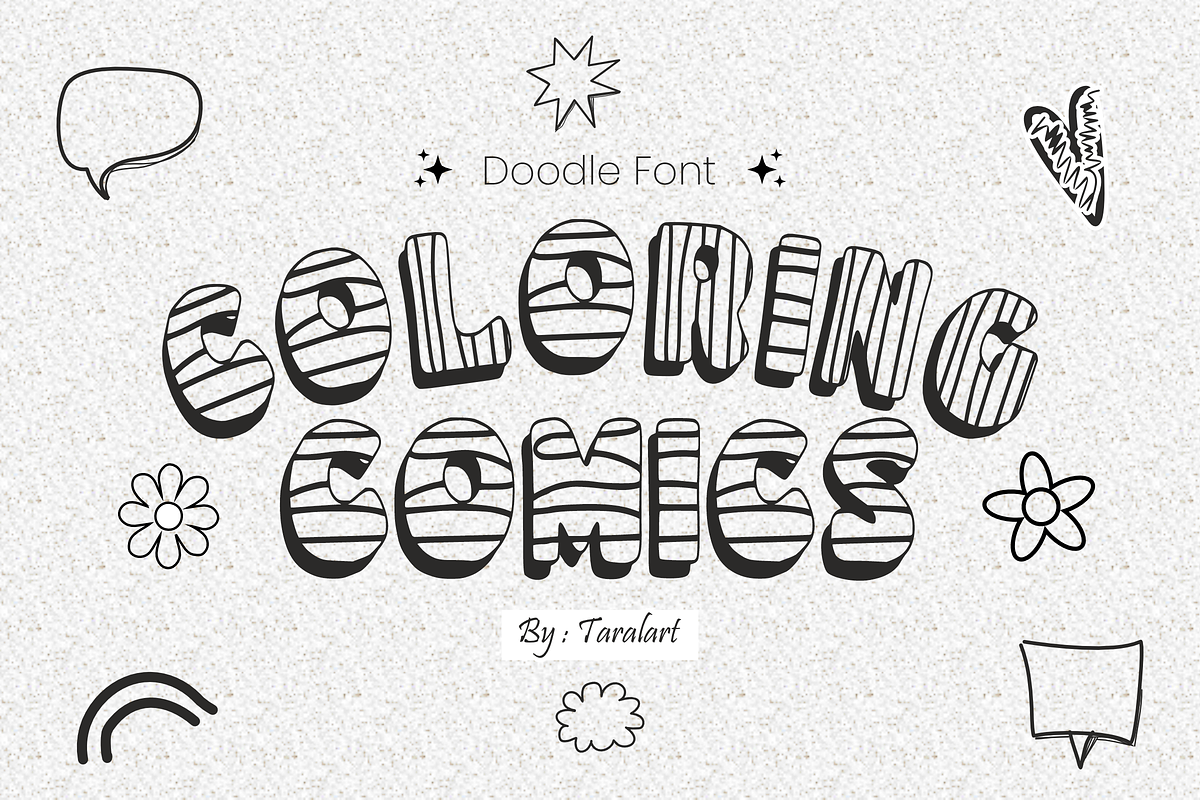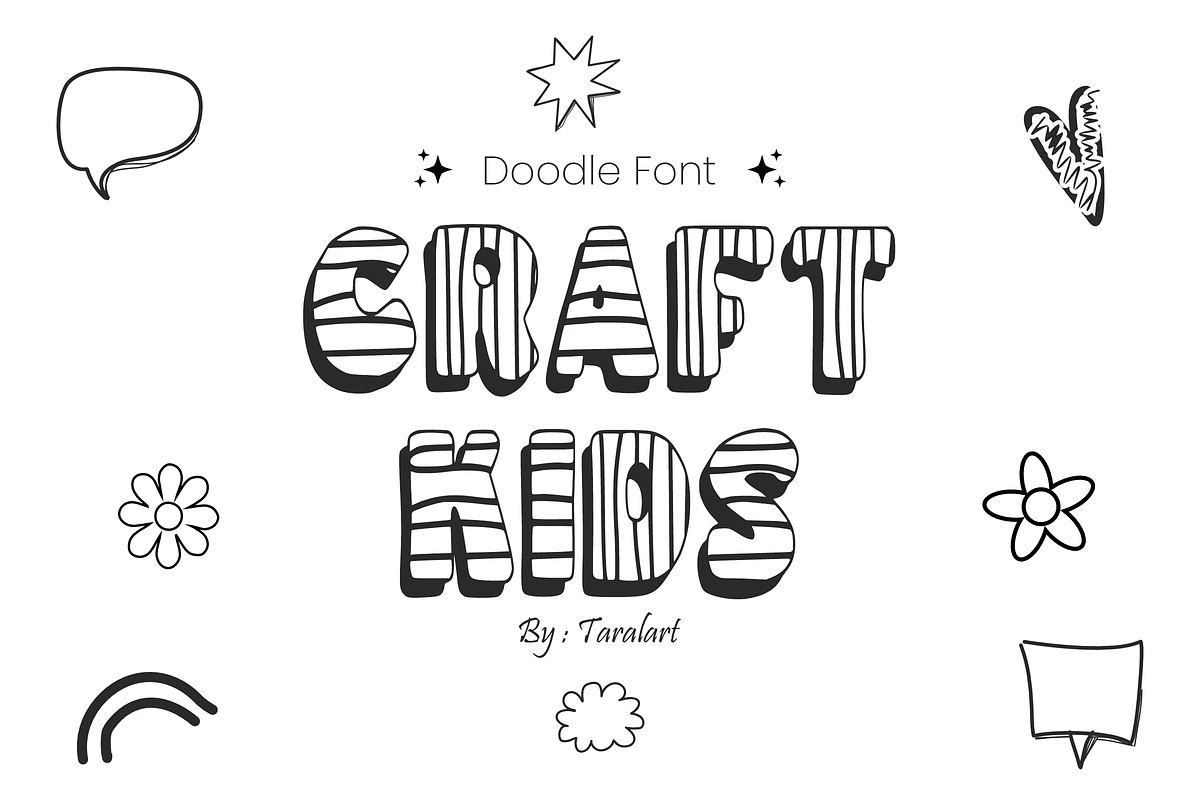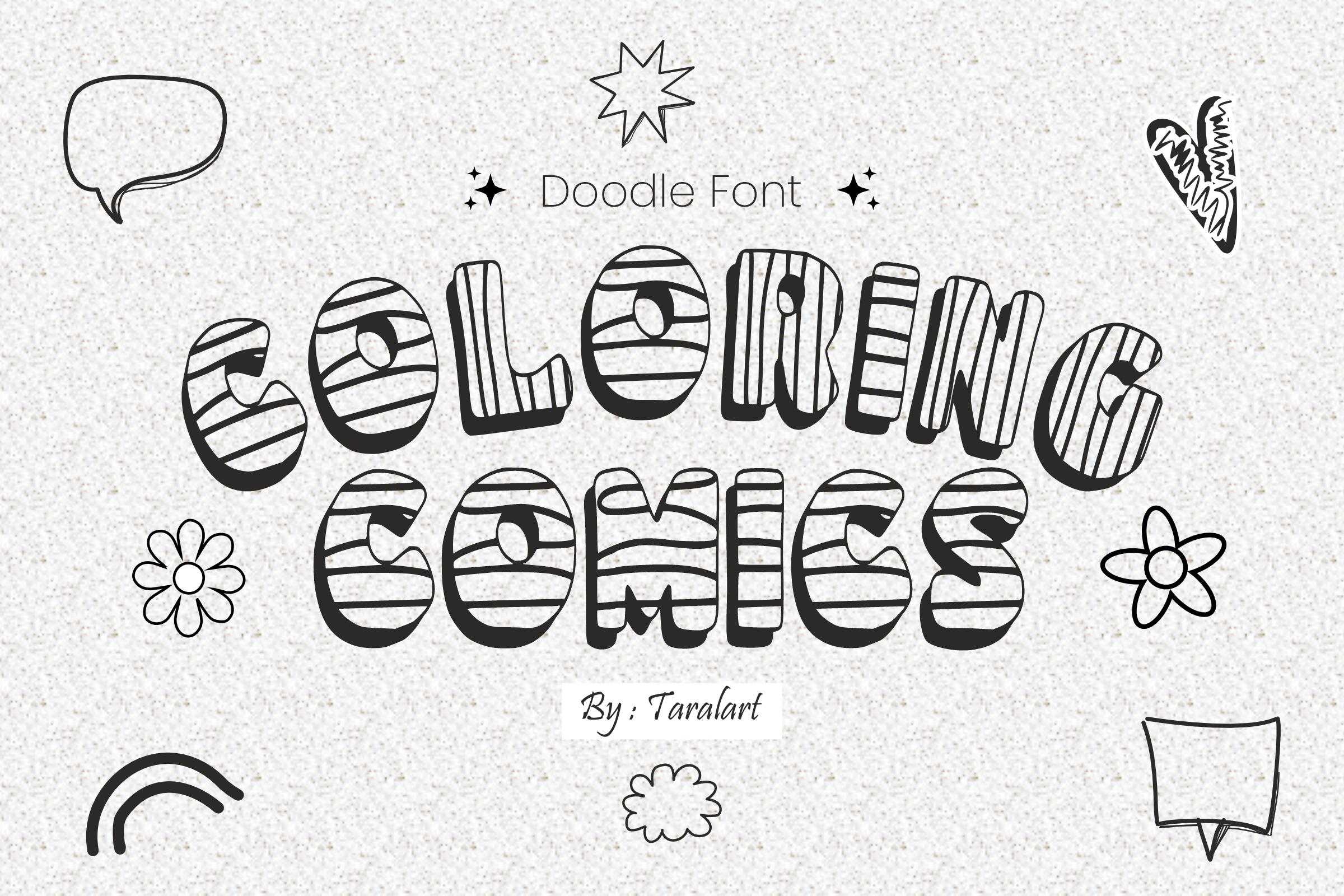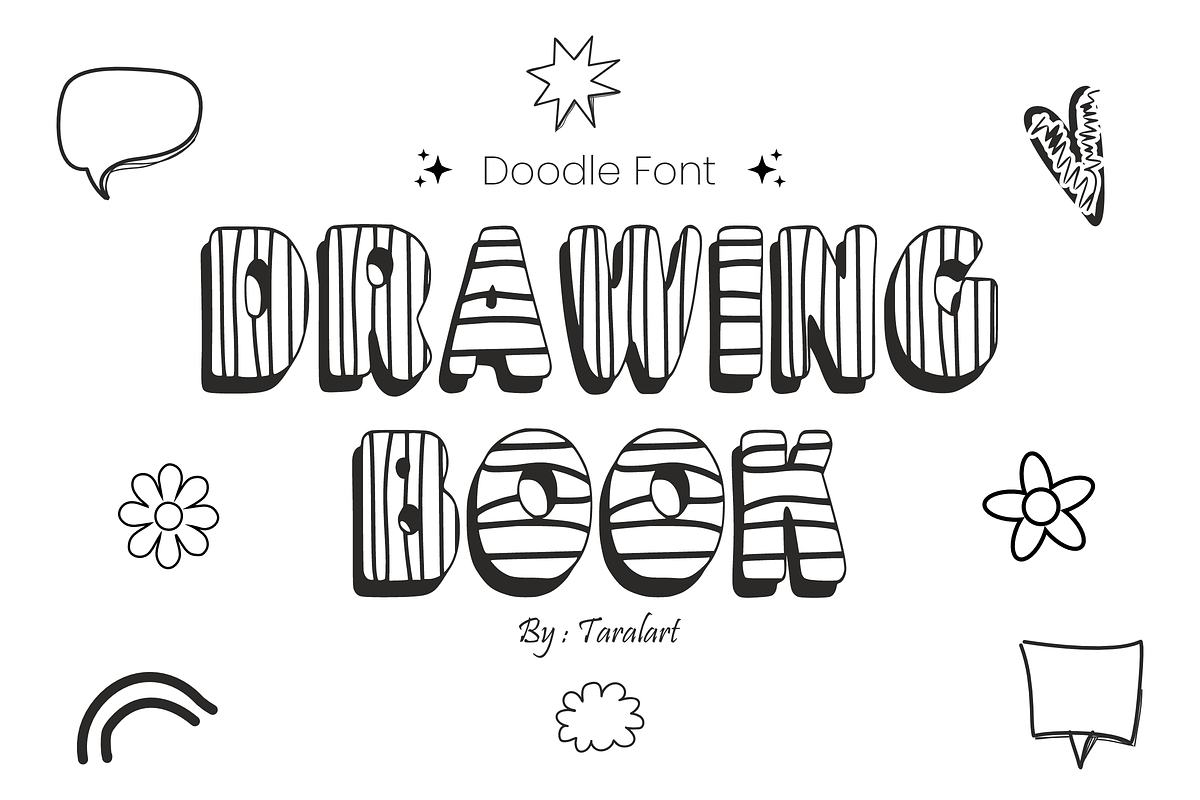
COLORING COMICS- Playful Doodle Font
COLORING COMICS - Playful Doodle Display Font
Bring your creative layouts and activity pages to life with Coloring Comics! This charming display typeface features chunky, hand-drawn bubble letters filled with a whimsical inner doodle stripe pattern and a bold comic shadow effect. It’s the ultimate choice for adding an instant, cheerful doodle aesthetic to your headlines.
Perfect for kids' projects, activity books, and trend-focused crafting, Coloring Comics masterfully pairs a playful cartoon look with excellent legibility. It is highly versatile, deeply expressive, and fully optimized for seamless performance across premium digital cutting tools and professional print setups.
All-Caps Character Set (Chunky, doodle-filled uppercase letters)
Numbers & Basic Punctuation (Essential, simple symbols included)
Children's Coloring Books, Comic Strips, & Playful Activity Pages 🎨
Cricut, Silhouette, & DIY Kid-Friendly Craft Sublimation Projects ✂️
Teacher Resources, Back-to-School Prints, & Classroom Decor 🎒
Custom Die-Cut Stickers, Fun Planner Elements, & Bullet Journals 📓
Kids' Product Packaging, Toy Labels, & Birthday Party Themes 🎈